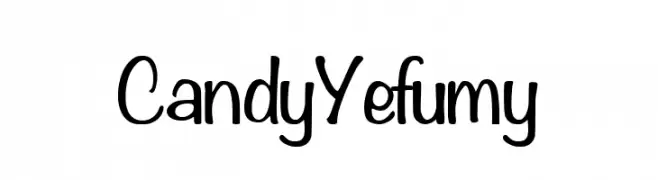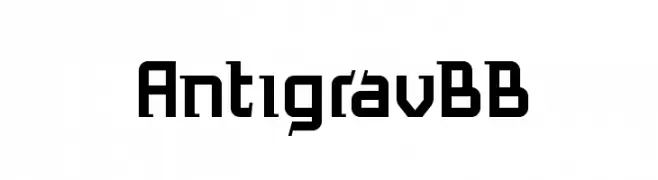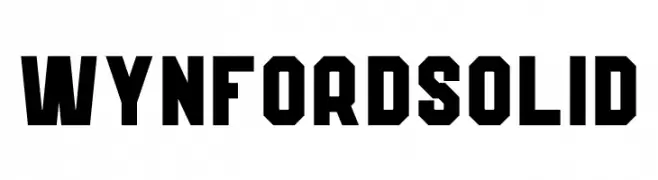
A playful, handwritten font with smooth, rounded strokes.
A bold, futuristic font with angular, geometric characters.
A bold, geometric font with strong, angular lines and a solid, robust appearance.
Halloween-themed pictogram font with spooky illustrations.
A bold, oblique font with a modern and dynamic style.